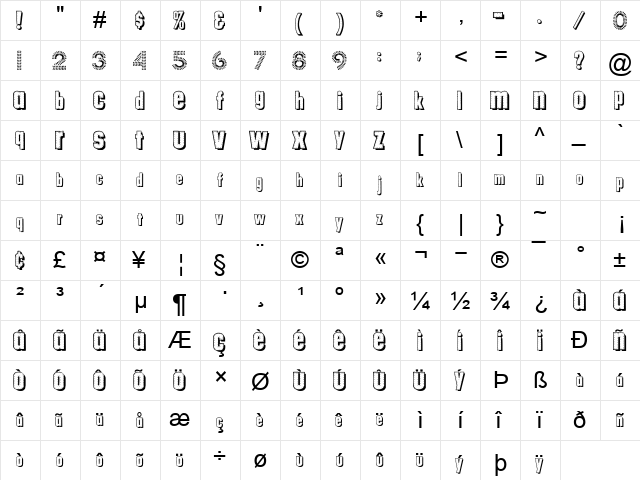
tungfont alpha 003 Regular Font Preview
tungfont alpha 003 Regular
tungfont alpha 003 Regular Font Details
Design Context for tungfont alpha 003 Typeface
tungfont alpha 003 is a composed and adaptable typeface that performs quietly and consistently across a wide range of design contexts.